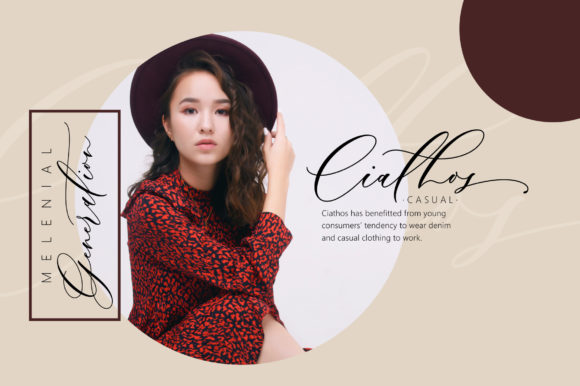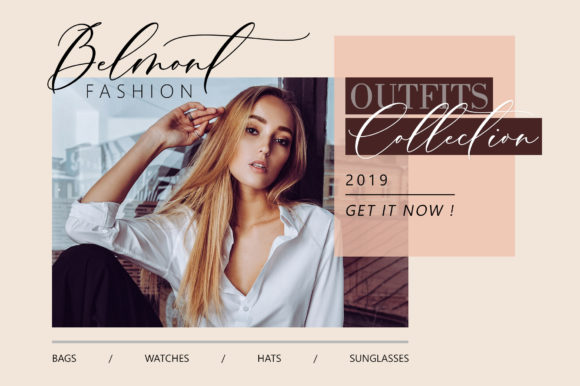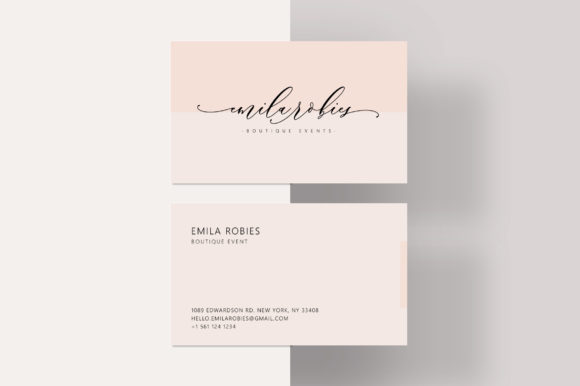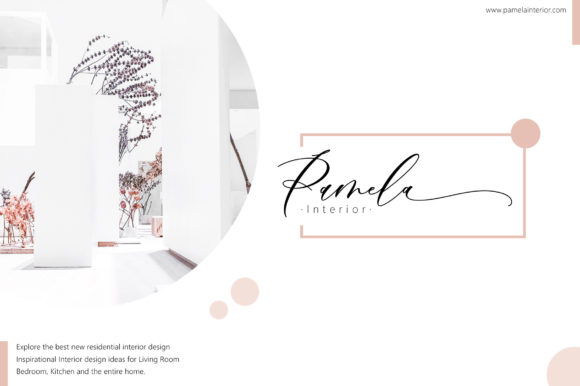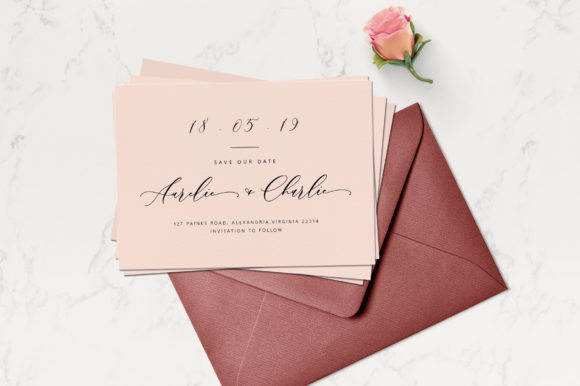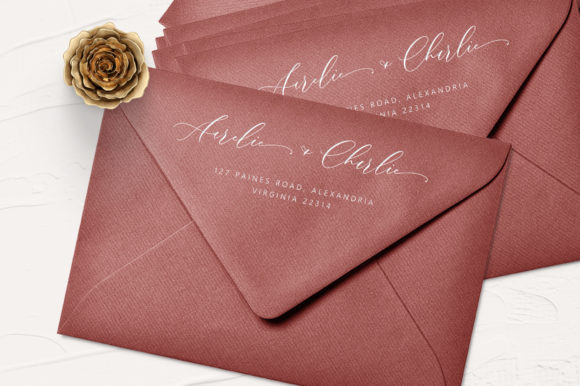
Datting Rose Font: The Perfect Choice for Elegant Designs
Are you a designer or crafter looking for a font that exudes elegance and sophistication? Look no further than the Datting Rose font. This delicate and elegant handwritten font is sure to capture your heart with its distinct and well-rounded letters, making it a masterpiece for any design project.
What Makes Datting Rose Font So Special?
The Datting Rose font is a unique and versatile font that can be used to create spectacular designs. Its incredibly versatile style makes it perfect for a wide range of projects, from wedding invitations and stationery to branding and packaging. The font’s delicate and elegant appearance is sure to add a touch of sophistication to any design.
Key Features of Datting Rose Font
- Delicate and Elegant Handwritten Font: The Datting Rose font is a beautiful handwritten font that is perfect for designs that require a touch of elegance and sophistication.
- Distinct and Well-Rounded Letters: The font’s distinct and well-rounded letters make it a masterpiece, setting it apart from other fonts.
- Incredibly Versatile Style: The Datting Rose font can be used for a wide range of projects, from wedding invitations and stationery to branding and packaging.
- PUA Encoded: The font is PUA encoded, which means you can access all of the glyphs and swashes with ease.
Benefits of Using Datting Rose Font
Using the Datting Rose font can bring numerous benefits to your design projects. Some of the benefits include:
- Elegance and Sophistication: The font’s delicate and elegant appearance is sure to add a touch of sophistication to any design.
- Versatility: The font’s incredibly versatile style makes it perfect for a wide range of projects.
- Easy to Use: The font is PUA encoded, making it easy to access all of the glyphs and swashes.
- Unique and Distinctive: The font’s distinct and well-rounded letters make it a unique and distinctive font that will set your designs apart.
- Choose the Right Project: Choose a project that requires a touch of elegance and sophistication, such as a wedding invitation or a branding project.
- Access Glyphs and Swashes: Use the PUA encoding to access all of the glyphs and swashes and add more creativity to your design.
Design Ideas Using Datting Rose Font
The Datting Rose font can be used for a wide range of design projects. Here are some design ideas to get you started:
- Wedding Invitations: Use the font to create beautiful and elegant wedding invitations.
- Stationery: Use the font to create custom stationery, such as letterheads and business cards.
- Branding and Packaging: Use the font to create a unique and distinctive brand identity.
- Signage: Use the font to create beautiful and elegant signage for events or businesses.
The Datting Rose font is a beautiful and elegant handwritten font that is perfect for designers and crafters looking to add a touch of sophistication to their designs. With its distinct and well-rounded letters, incredibly versatile style, and PUA encoding, this font is sure to be a valuable addition to any design project.